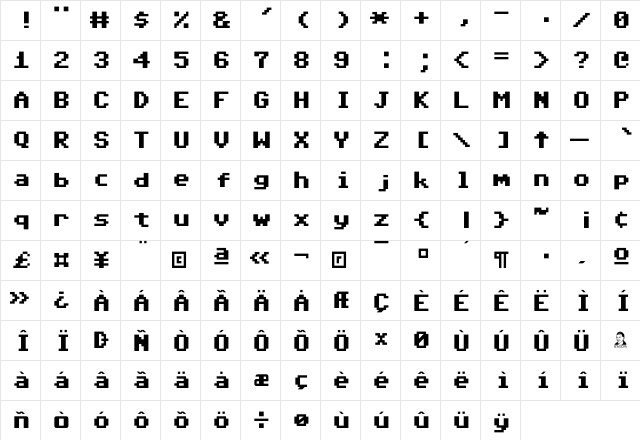
Commodore 64 Pixeled Regular
Design Context for Commodore 64 Pixeled Typeface
Commodore 64 Pixeled is rooted in pixel-grid construction, making it a natural fit for game UI, retro computing aesthetics, and digital nostalgia projects.
A natural choice for retro game titles, chiptune music branding, 8-bit UI, and digital nostalgia projects.
Pro Tip: Pair Commodore 64 Pixeled with flat colour palettes and simple geometric UI elements to reinforce its digital aesthetic.